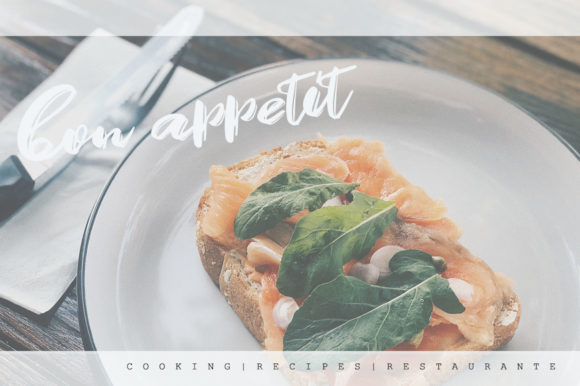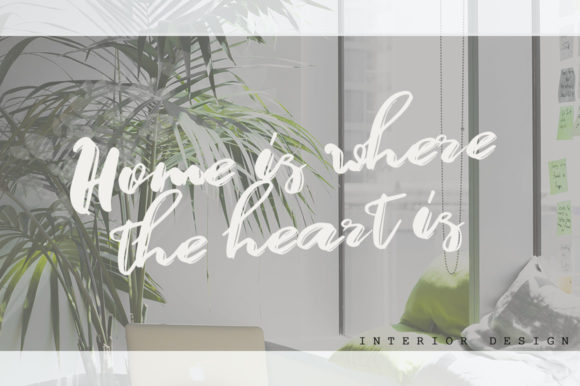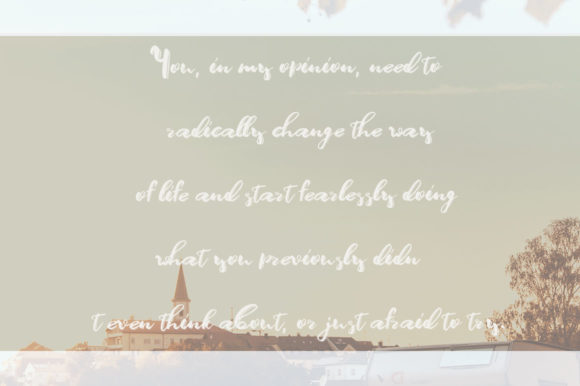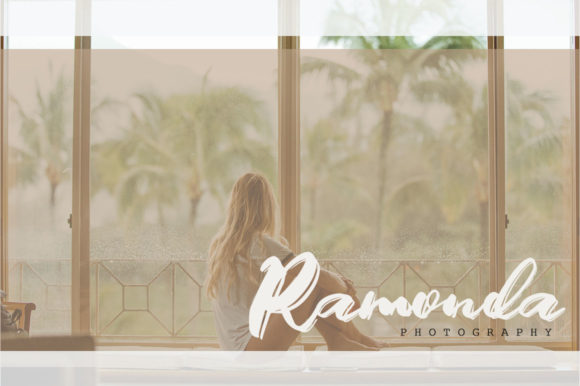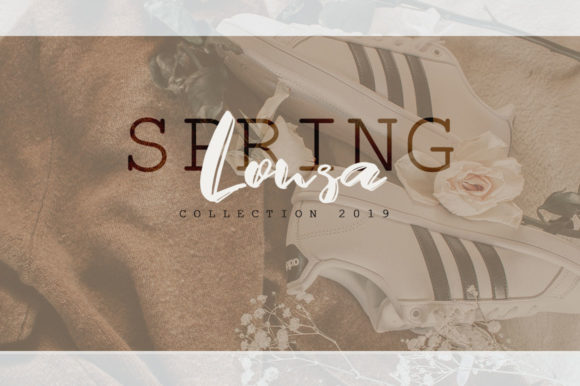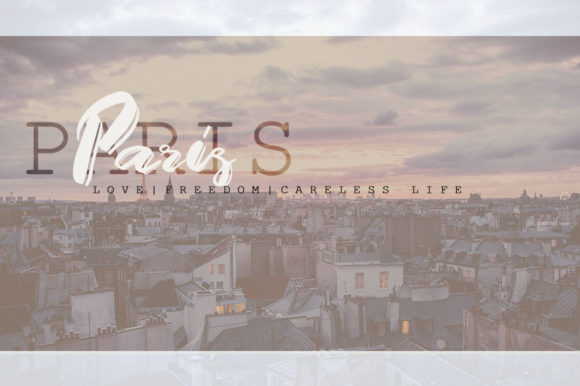
Introduction to Joyosly Font
As a designer, you’ve probably had that moment when you’re working on a creative project and you need the perfect font to bring your vision to life. You search through countless options, trying to find that one unique design element that will set your project apart from the rest. For me, that moment came when I stumbled upon the Joyosly Font – a beautifully crafted handwritten script that added an elegant touch to my branding project.
With its gentle curves and distinctive design, the Joyosly Font is a valuable resource for designers looking to add a high-quality, personal touch to their work. Whether you’re working on a logo, business card, or other design project, this font is sure to impress. And the best part? It’s available for free download, making it a fantastic design resource for creatives of all levels.
Key Features of Joyosly Font
- High-quality design: Joyosly Font is a premium-quality font designed for creative projects, offering a unique and elegant look.
- Large character set: The font includes a large character set, covering a wide range of languages and characters, making it suitable for international projects.
- Perfect for creative projects: With its unique and elegant design, Joyosly Font is ideal for various creative projects, including graphic design, web design, and more.
Honest Review: Joyosly Font
I recently stumbled upon the Joyosly Font while searching for a free download to enhance my creative project. The high quality of the font immediately caught my attention. It has a modern and sleek design that can be a great addition to any design resource.
- ✨ The font has a transparent background, making it easy to use on various backgrounds.
- ✨ The design is versatile and can be used in a variety of creative projects, from logos to digital art.
- ⚠️ The font may not be suitable for projects that require a bold, dramatic effect, as it can come across as a bit delicate.
- ⚠️ The font family is relatively small, which may limit its use in certain design contexts.
Overall, I was impressed with the Joyosly Font. While it may not be the perfect fit for every design project, it’s a great addition to any design resource and can add a touch of elegance to a creative project. I would definitely consider using it again in the future.
The Joyosly Font is perfect for a variety of creative projects, including social media graphics, presentations, and documents. Use it to add a touch of sophistication to your designs, and take your creative project to the next level.